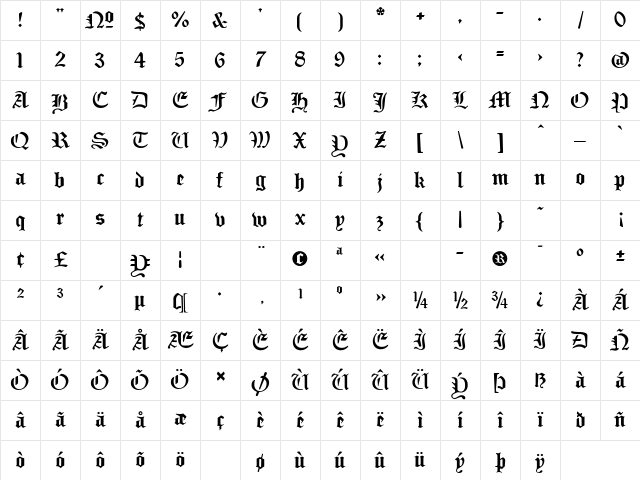
Complete SabbathBlack-Heavy Heavy glyph index. Displaying only characters natively supported by SabbathBlack-Heavy Heavy font.
SabbathBlack-Heavy is a composed and adaptable typeface that performs quietly and consistently across a wide range of design contexts.